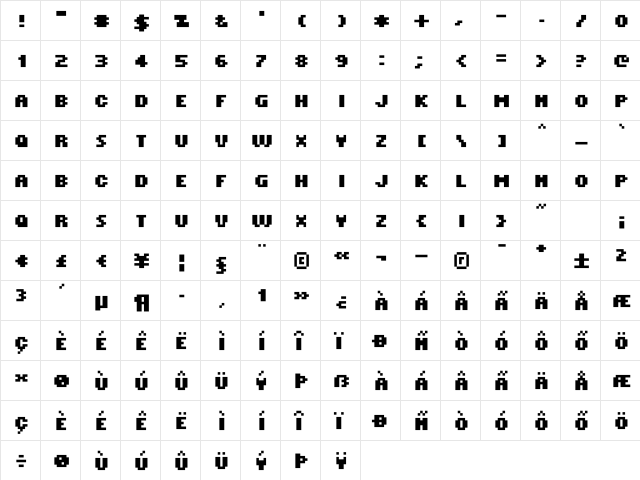
Mini 7 Condensed Bold
Design Context for Mini 7 Condensed Typeface
Mini 7 Condensed offers clean, dependable letterforms without strong stylistic allegiance, making it a practical choice for designers who need flexibility. The heavy weight commands attention and anchors typographic hierarchies. Its narrow stance lets it pack a punch even in space-constrained designs.